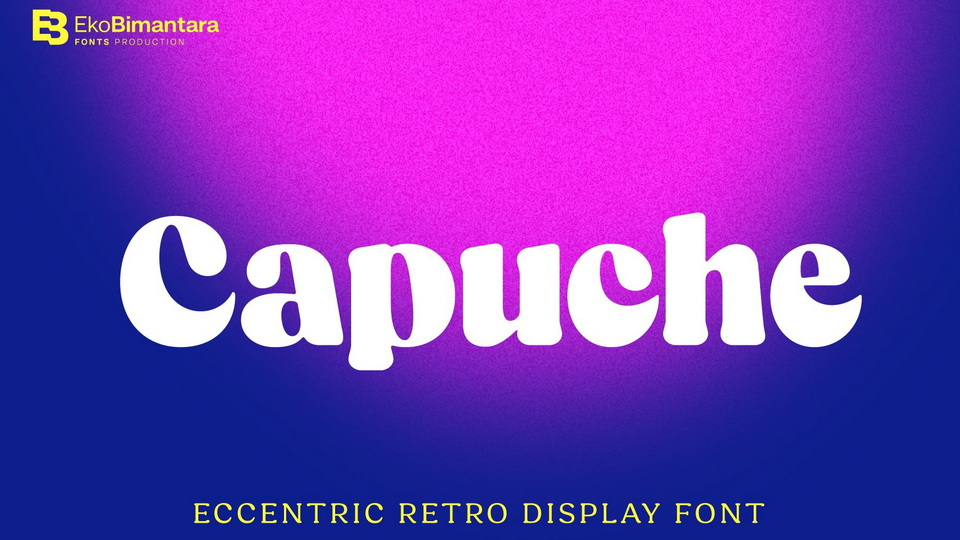
Download Capuche font, an eccentric, bold, bloating, retro display typeface. Capuche is designed to be fit for various design purposes such as logo, branding, titling, etc.